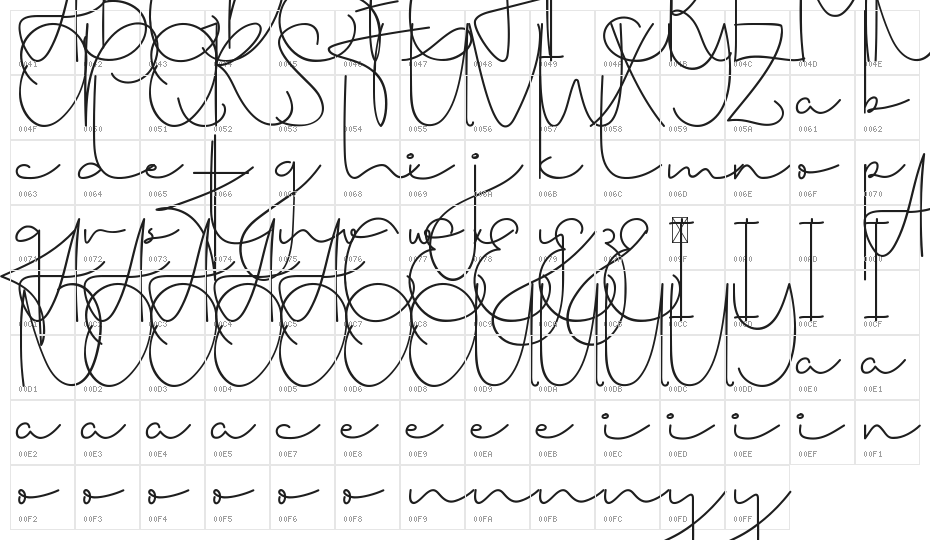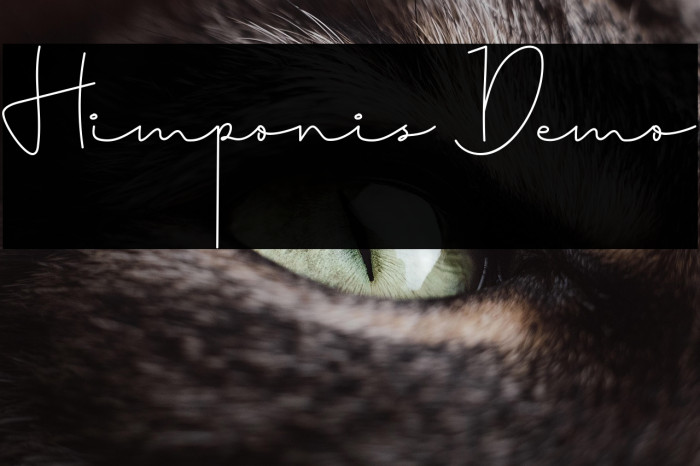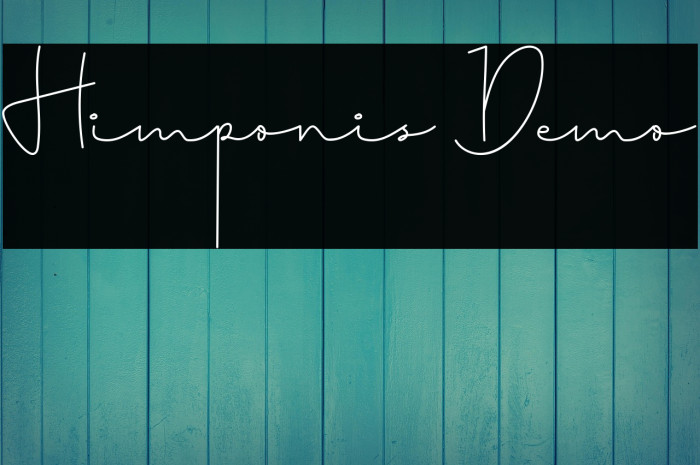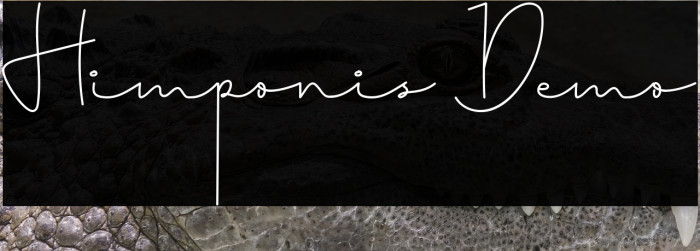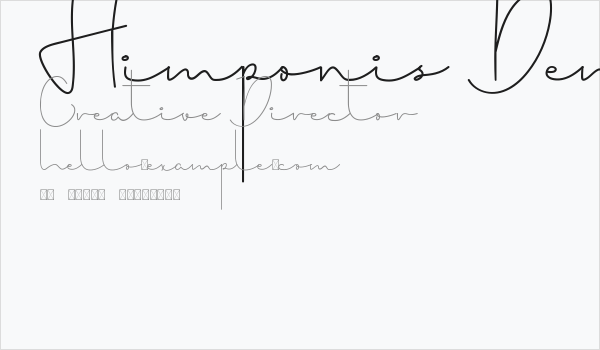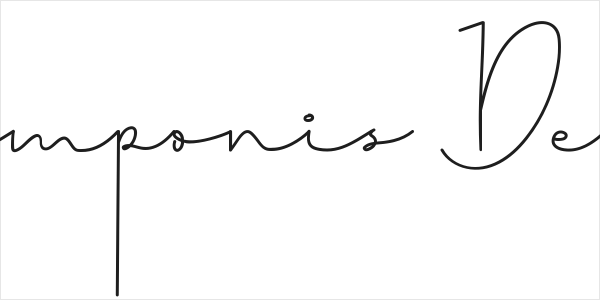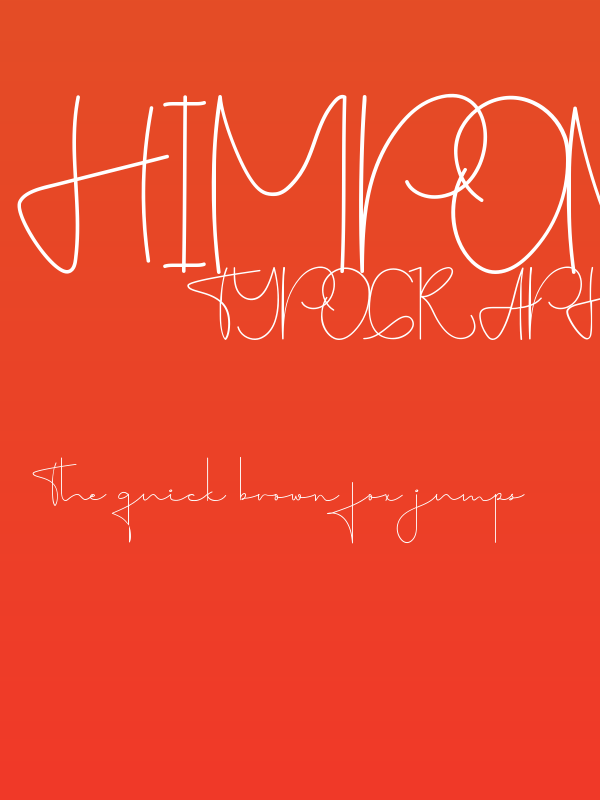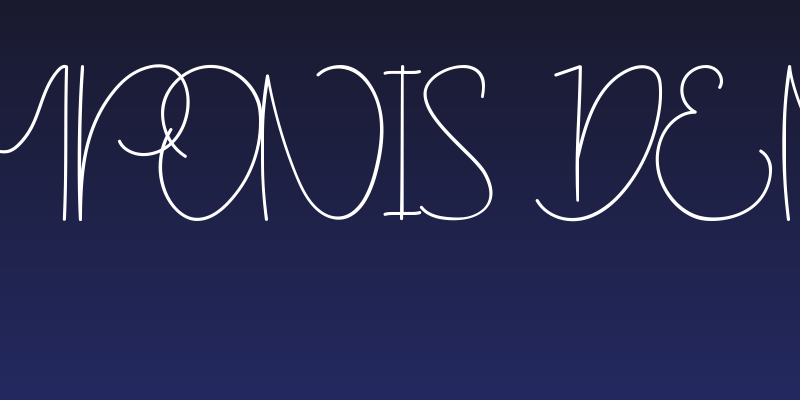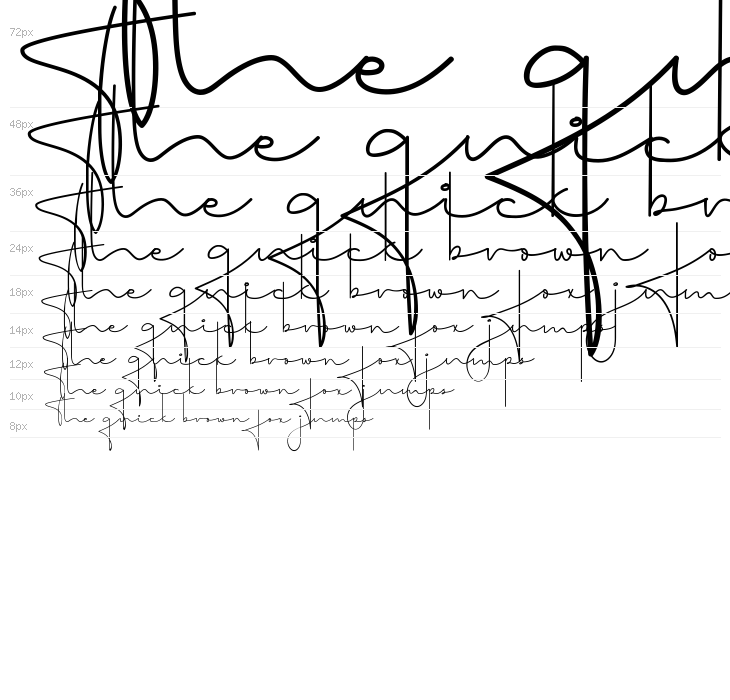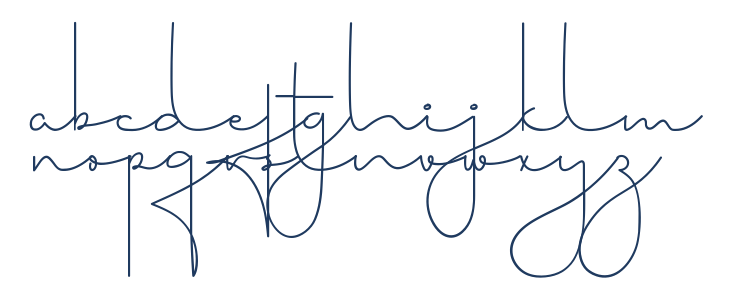
Himponis Demo Font
Himponis Demo Description
This font features a unique and elegant handwritten style with a flowing, cursive appearance. The letters are interconnected, creating a seamless and fluid look. The uppercase letters are tall and slender, while the lowercase letters maintain a consistent height, adding to the font's graceful aesthetic. The strokes are thin, with a delicate touch that enhances the overall elegance. This font is perfect for projects that require a personal and sophisticated touch, such as invitations, greeting cards, or branding materials. Its distinctive style makes it stand out, offering a blend of modern and classic elements.
| Overall Style | Elegant, Modern |
| Use Case | Invitations, Greeting cards, Branding |
| Proposed Projects | Ideal for wedding invitations, greeting cards, personal branding, and elegant logos. |